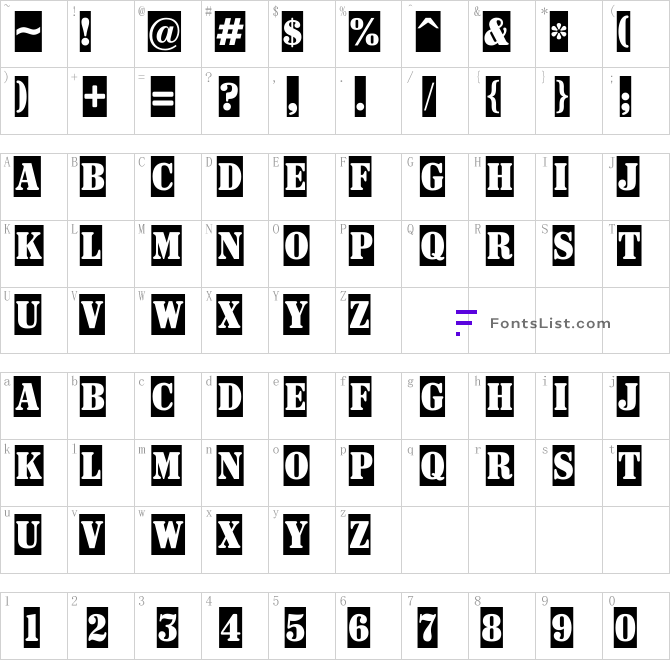
a_SignboardTitulNrSl.ttf is a very beautiful artistic font, a_SignboardTitulNrSl.ttf is widely used in the design and printing of various books and pictures,a_SignboardTitulNrSl.ttf has a strong visual impact,a_SignboardTitulNrSl.ttf is a commonly used font in newspapers, magazines and books, and is used in posters, e-commerce Poster design, store design, logo design, font design and other fields.a_SignboardTitulNrSl.